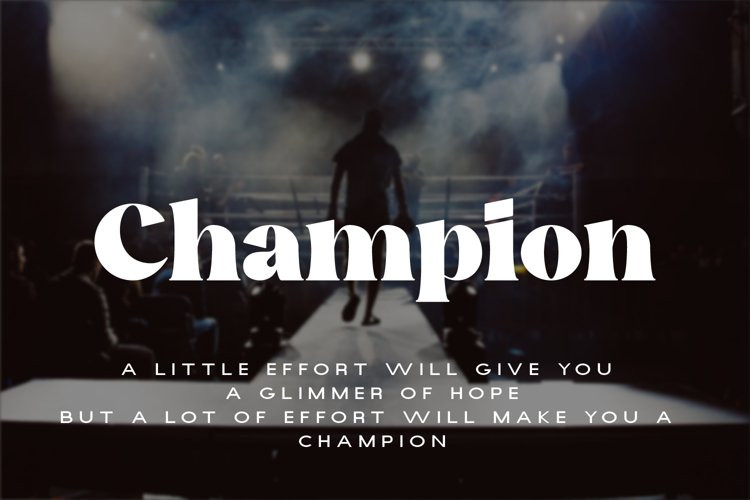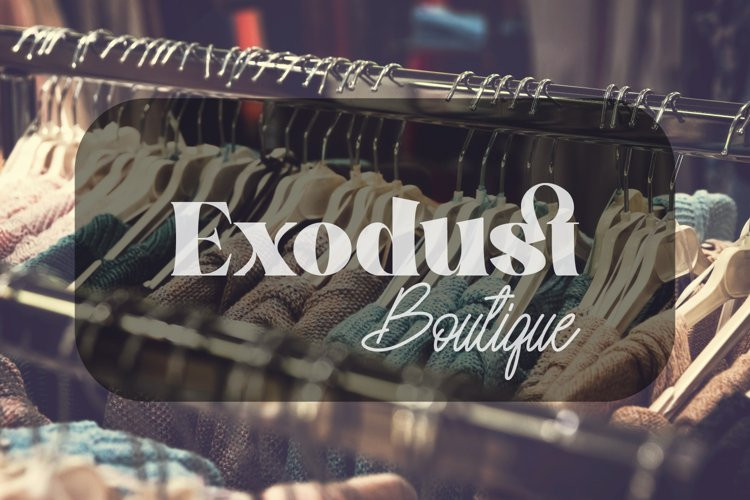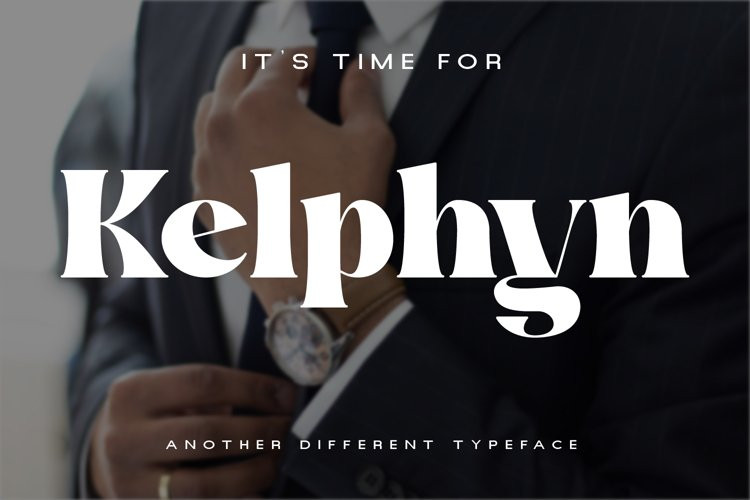
Kelphyn Font
Kelphyn FontHello, now I tell you.
its time for “Kelphyn”.
Yes you heard right. Kelphyn is a serif font family that allows you to try out new, innovative designs that suit your taste. Created to support all forms of design, art and ideas. especially for modern magazine designs, website layouts and supporting branding layouts.